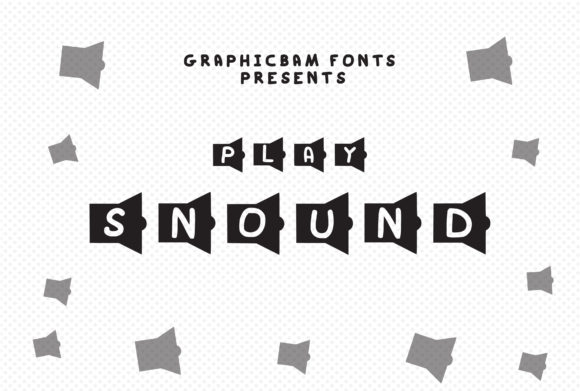
Prepare your designs to be heard, not just seen, with the Play Sound font! This decorative font family is the ultimate choice for adding a touch of auditory allure to your creative projects. Its bold and playful design is like a symphony of shapes, making it the perfect font for expressing yourself loudly and clearly.
Unleash your creativity and let Play Sound's dynamic characters dance across your designs. Its unique and eye-catching letterforms are sure to grab attention, whether you're crafting covers, banners, product packaging, or children's designs. The possibilities are endless, just like the melodies that Play Sound evokes.
Picture this: your website visitors are greeted by a captivating headline that seems to leap off the screen, thanks to Play Sound's irresistible charm. Its distinctive glyphs create a visual rhythm that draws the eye and compels readers to delve deeper into your content. With Play Sound, your designs won't just look good - they'll resonate with your audience on a whole new level.
But Play Sound's magic doesn't stop at visual appeal. It's also incredibly versatile, adapting seamlessly to a wide range of design styles and themes. Whether you're aiming for a playful and lighthearted vibe or a more serious and sophisticated tone, Play Sound has the adaptability to match your vision. Think of it as a musical chameleon, effortlessly blending into any creative landscape.
And here's a little secret: Play Sound has a knack for making your designs more memorable. Its unique letterforms leave a lasting impression on the minds of your audience, ensuring that your messages stick with them long after they've left your page. It's like planting an earworm of visual delight in their minds, keeping your brand humming in their thoughts.